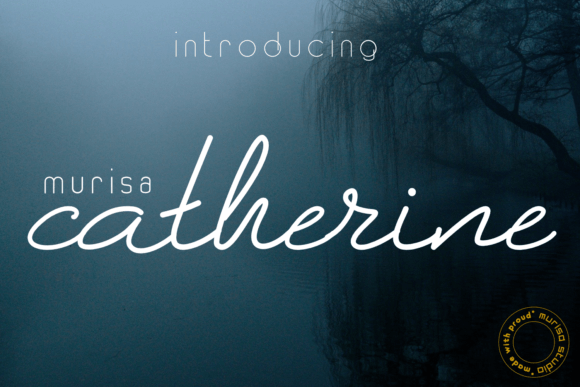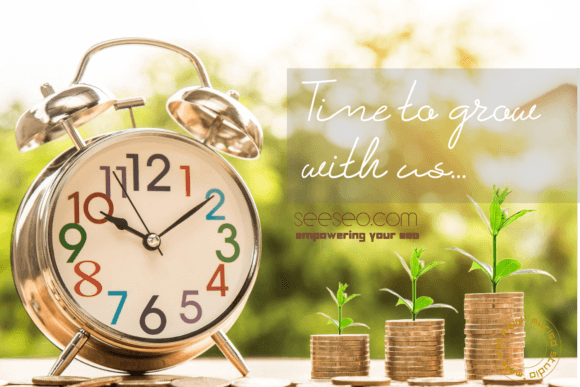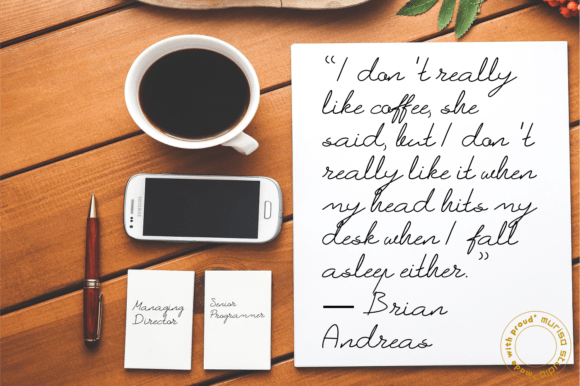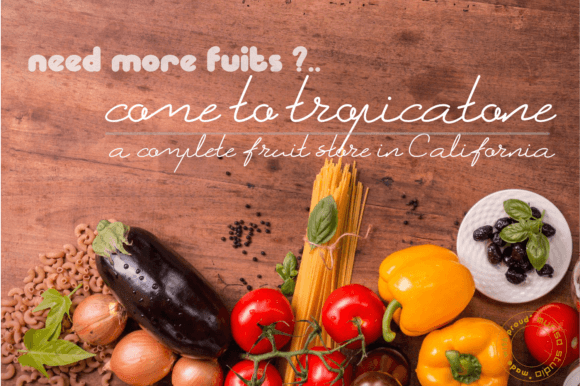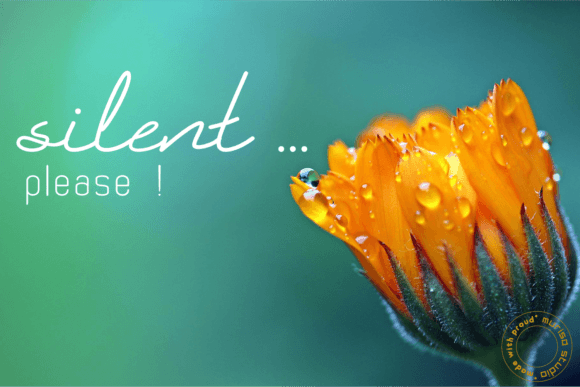
Catherine Font
About Catherine Font
Catherine is a lovely handwritten font, created especially to accompany ear-end holidays. This font was created with care and diligence, and it is perfect for projects that require a personal feel. Use this font for invitation cards, letters, or other projects that have a nuance of beauty and joy.